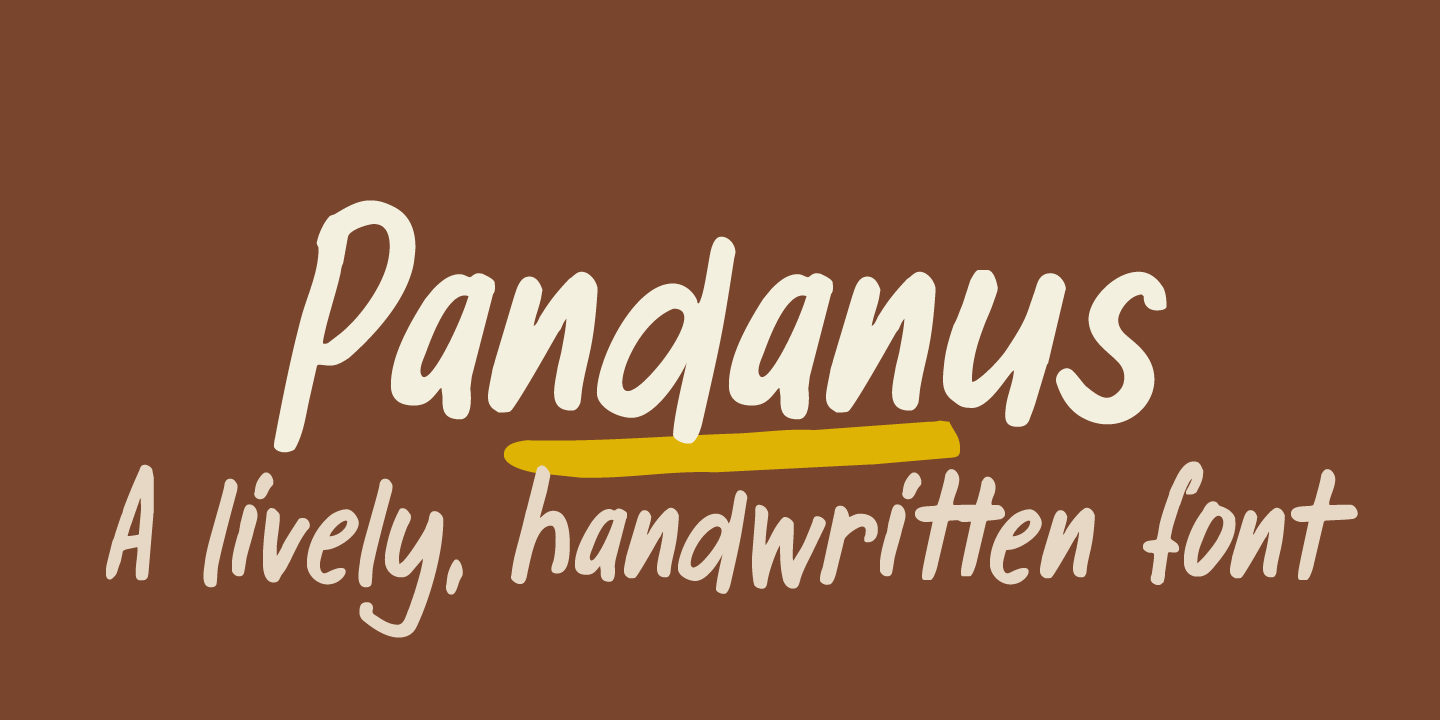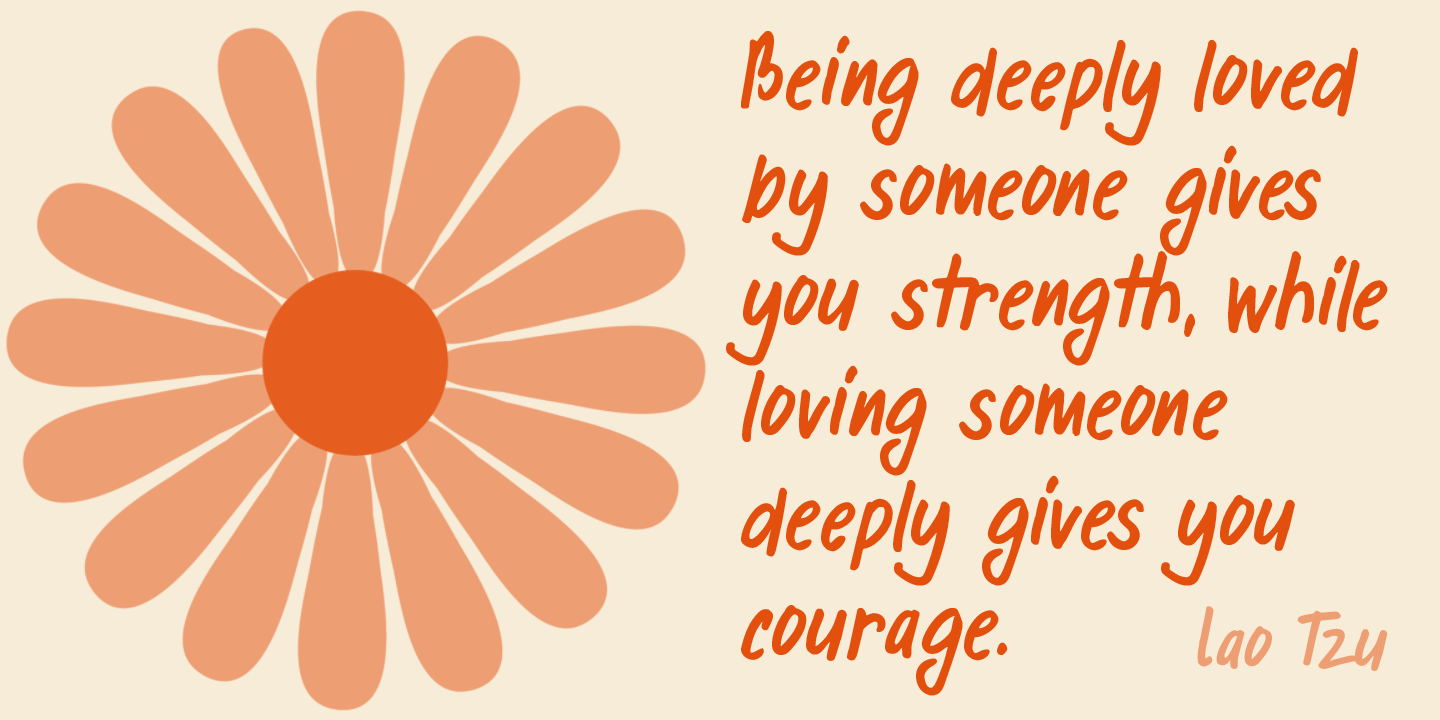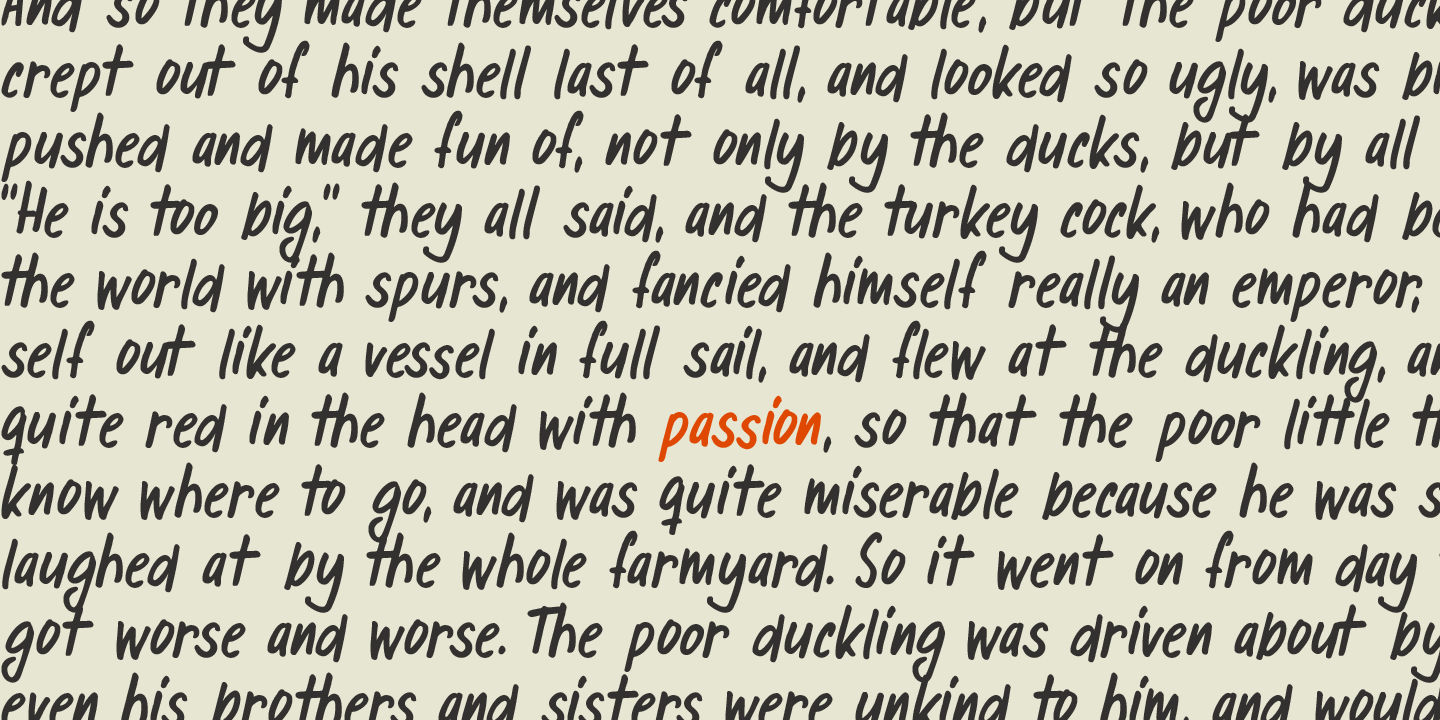
Pandanus
Pandanus is a lovely, handwritten typeface with a lot of flair. It is stylish, elegant and highly legible, making it an ideal font for texts and cards. Comes with a full range of diacritics and alternates for the lower case letters.